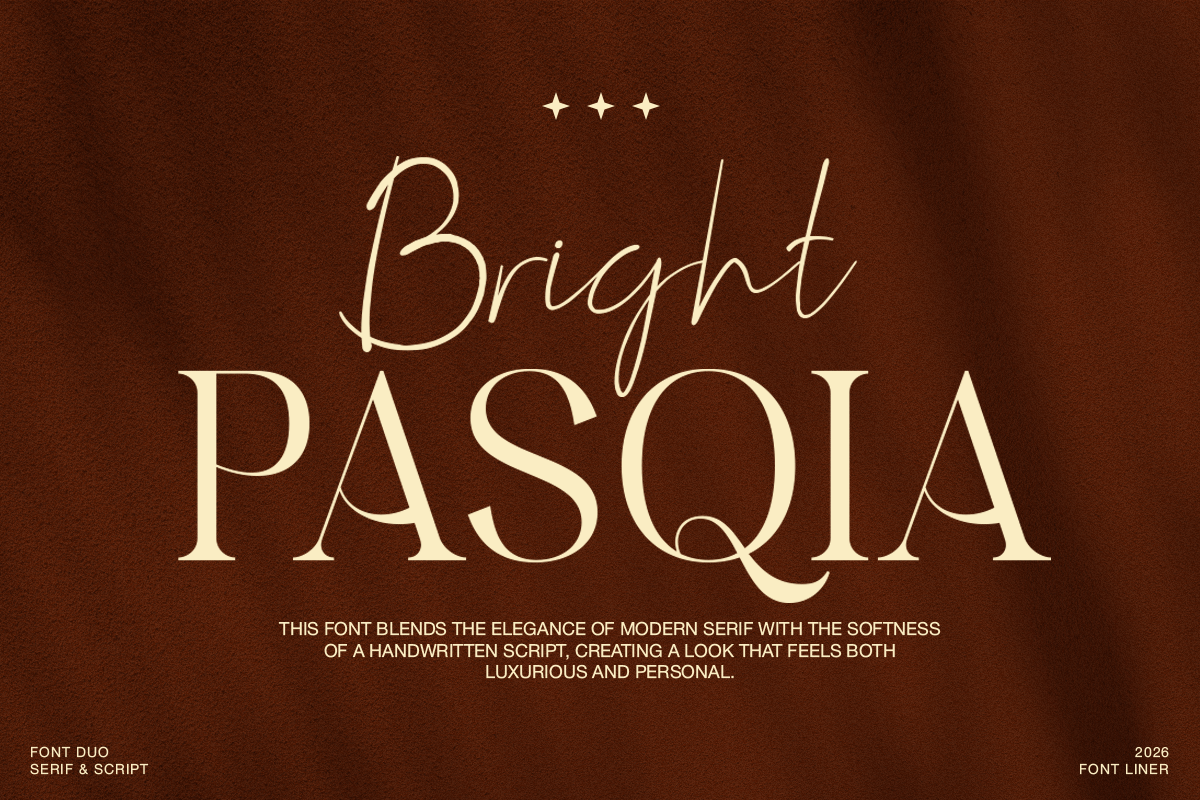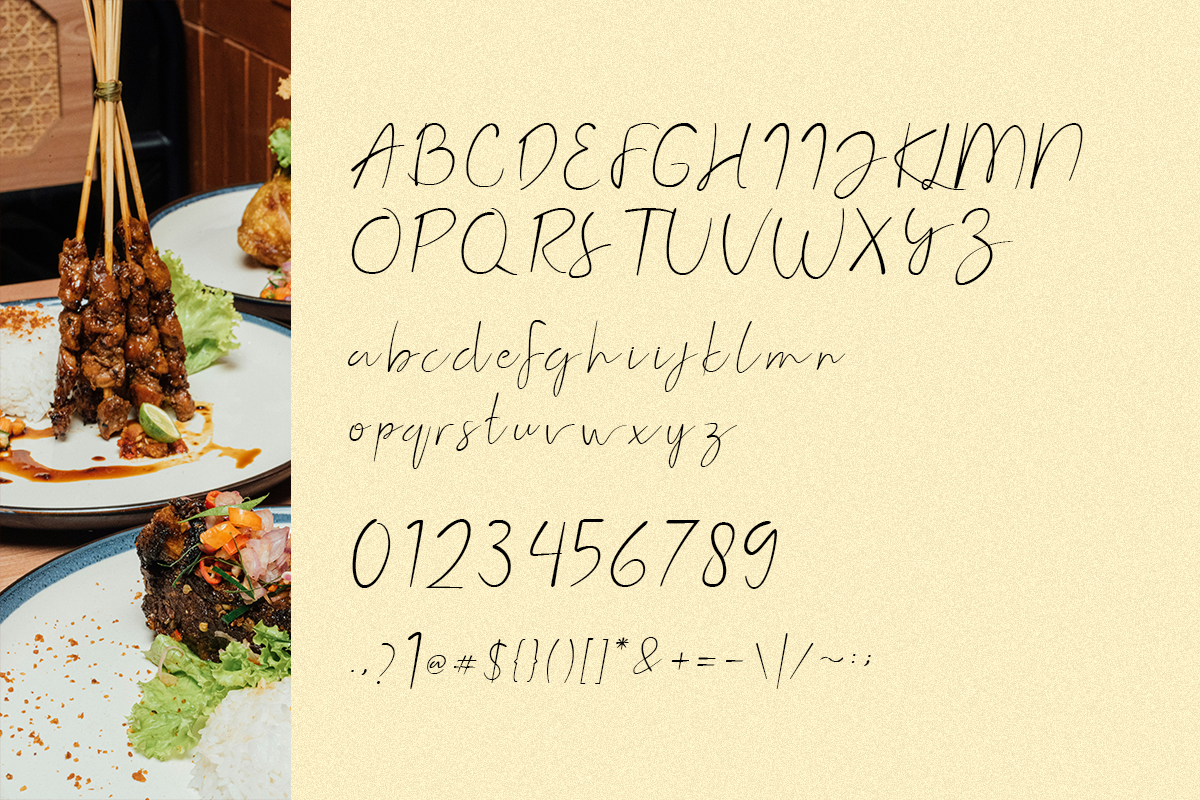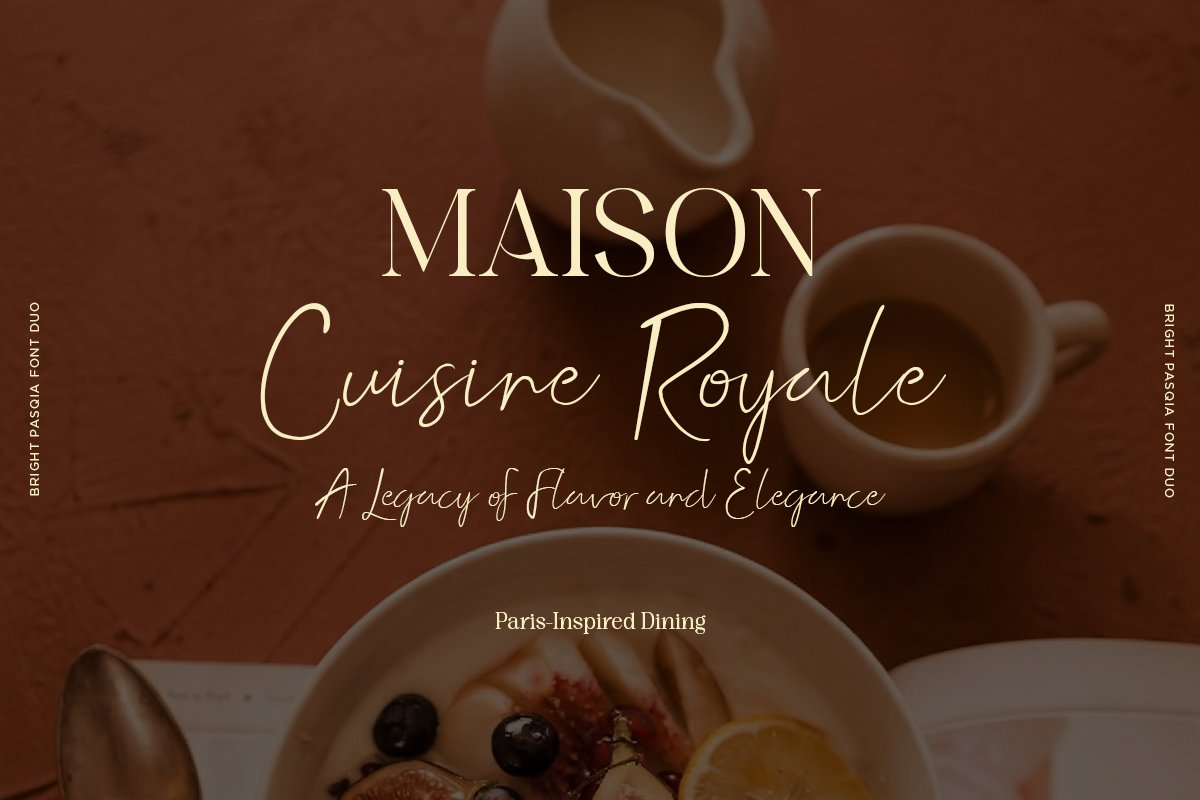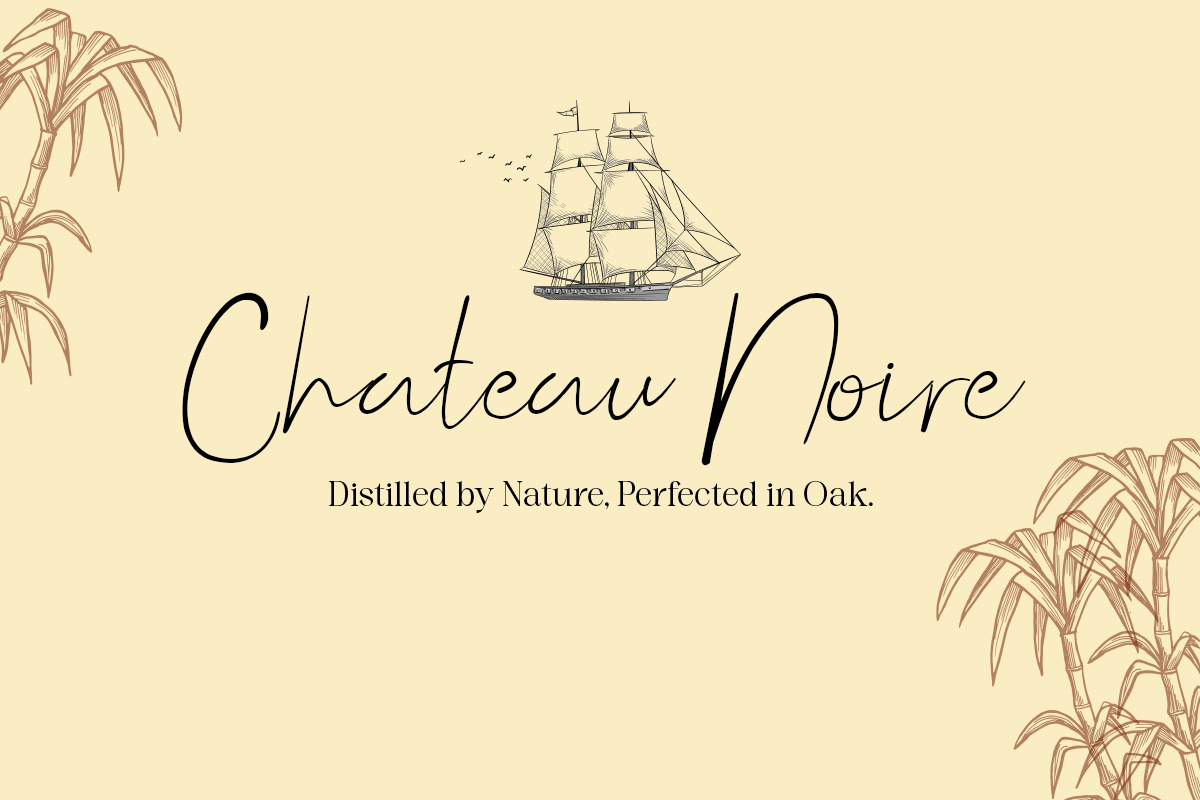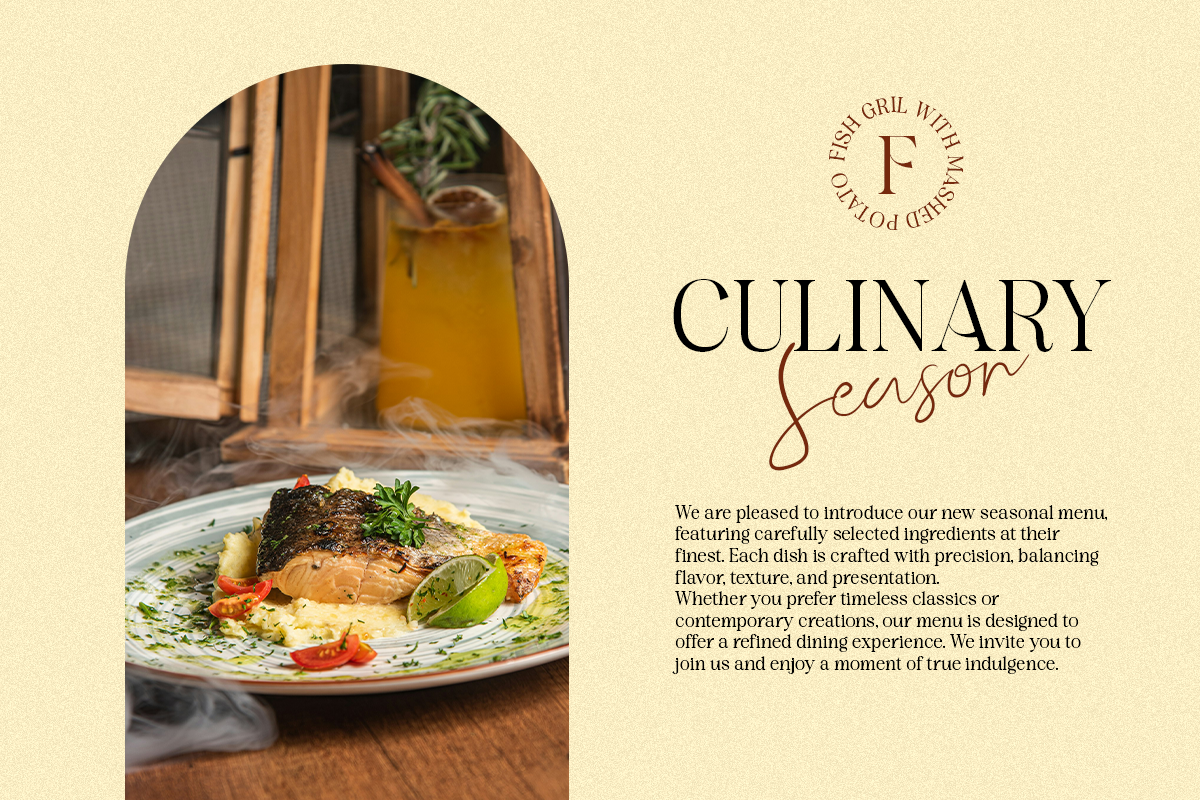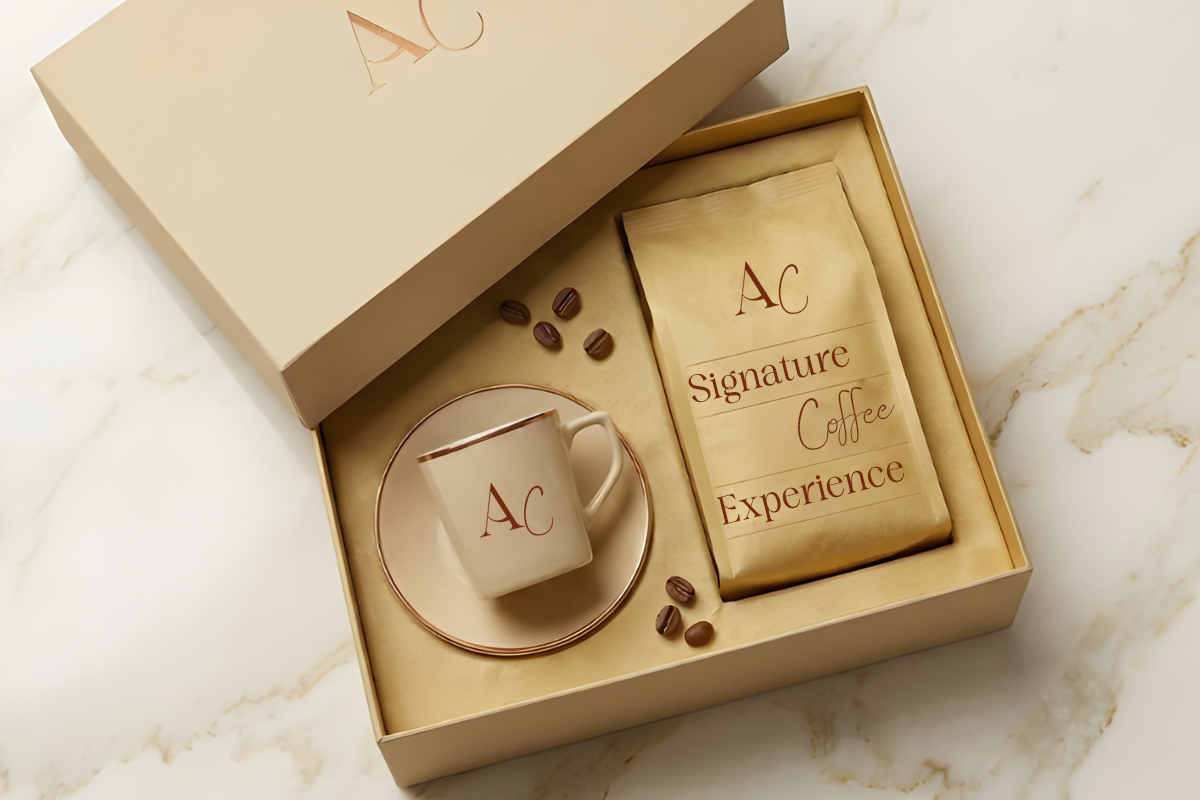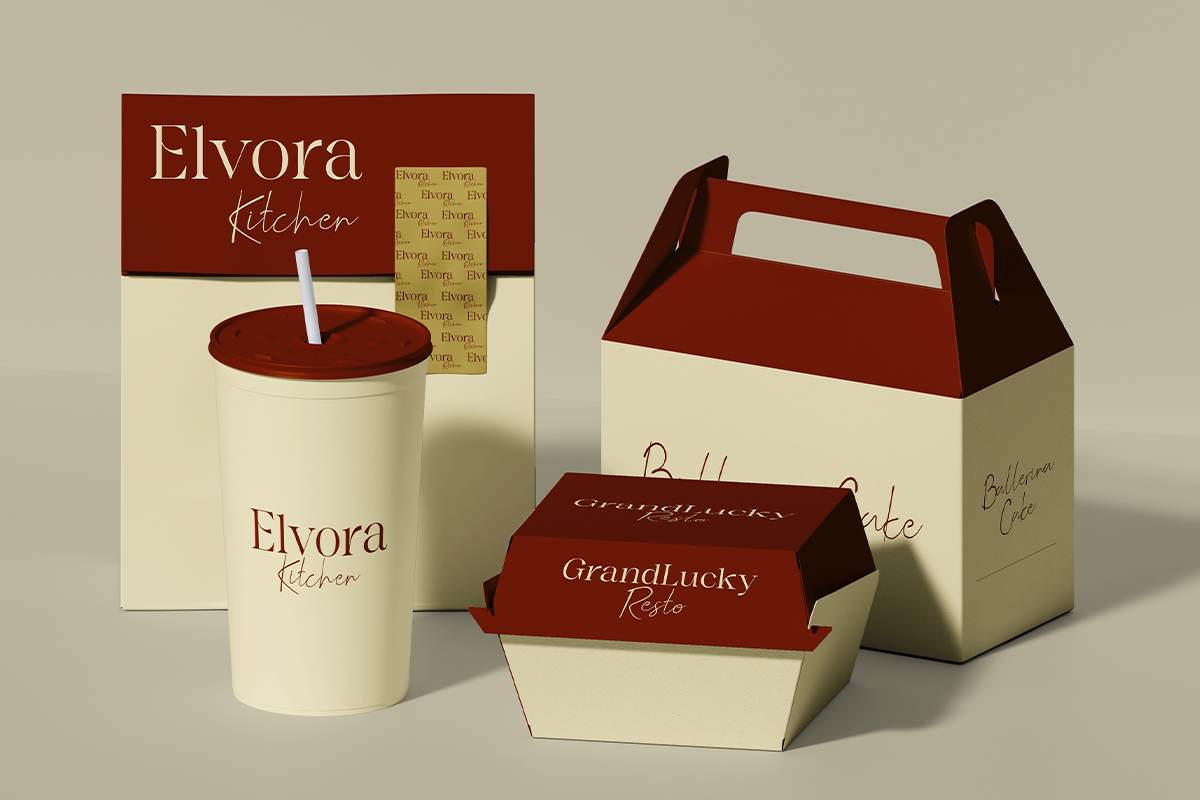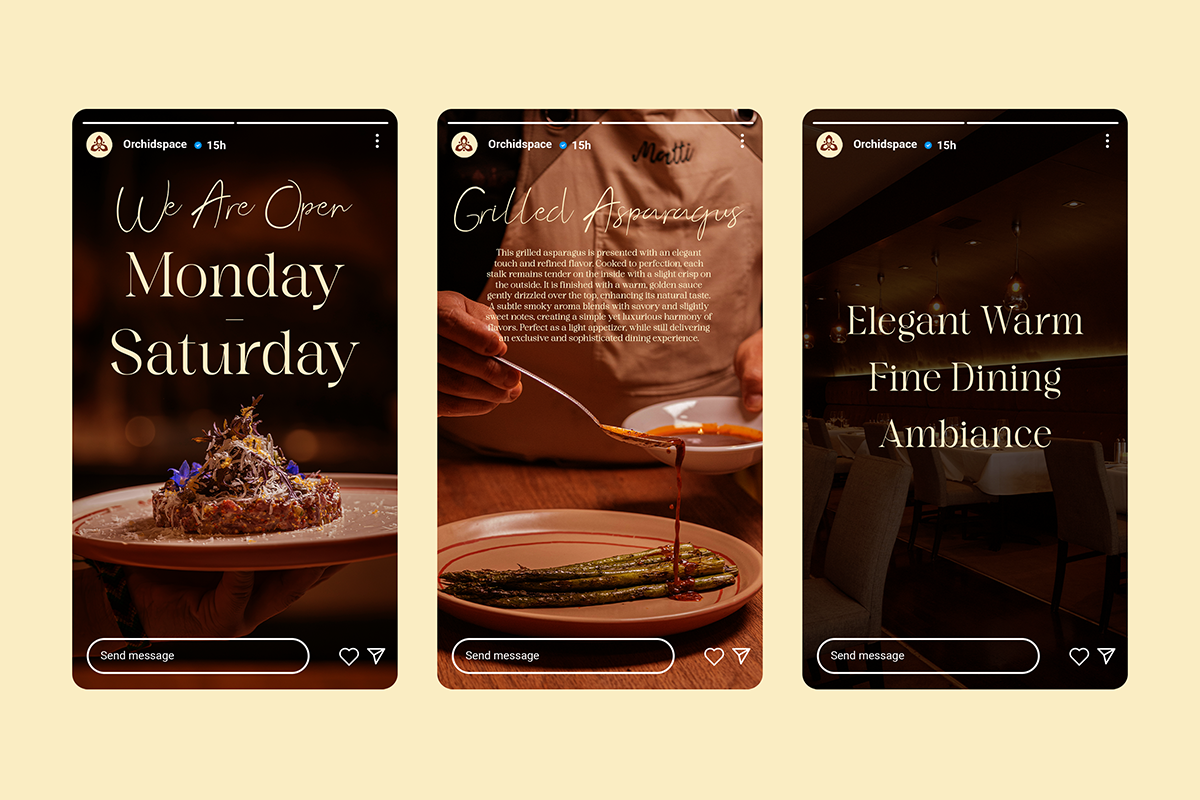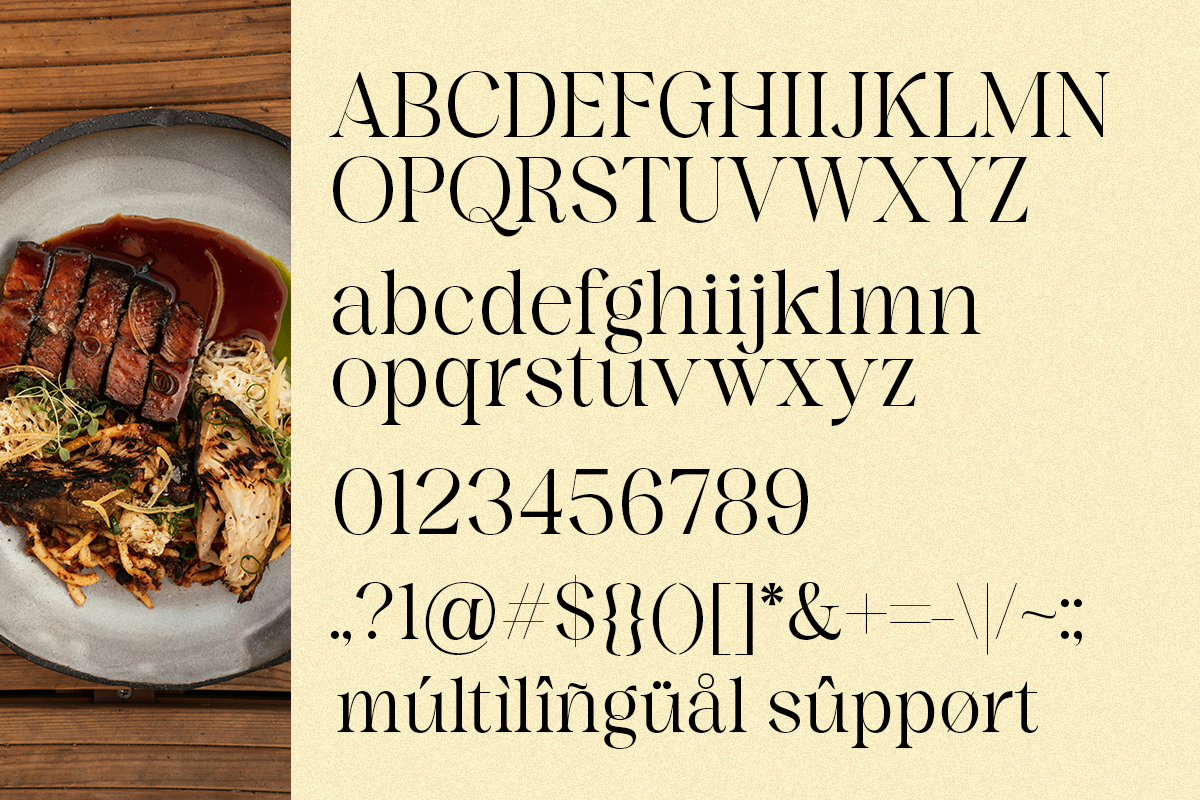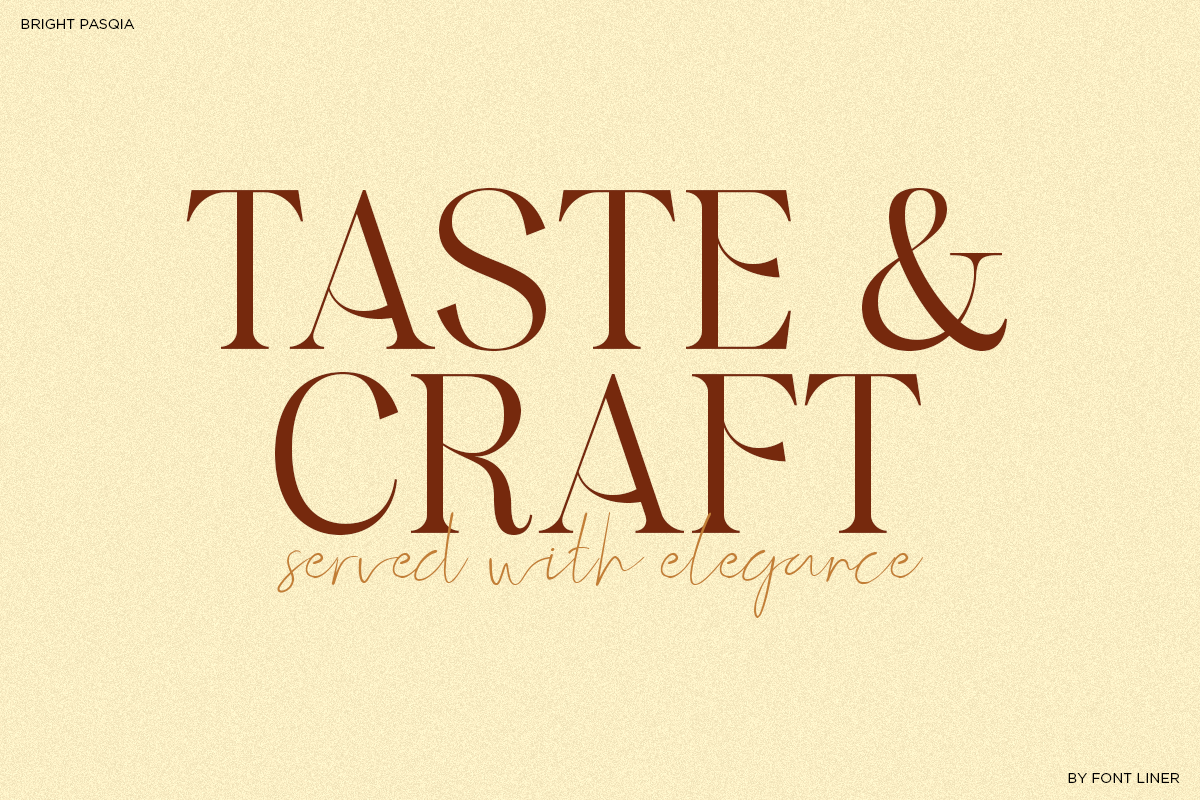
Bright Pasqia - Elegant Font Duo
Bright Pasqia is a sophisticated font duo that blends the elegance of a modern serif with the softness of a handwritten script. This harmonious combination creates a refined yet personal aesthetic, perfect for designs that seek both luxury and warmth. The serif brings structure and authority, while the script adds a natural, flowing touch.
Designed for versatility, Bright Pasqia excels in branding, wedding invitations, editorial layouts, and premium product packaging. The contrast between clean serif forms and expressive script strokes allows for dynamic and eye-catching compositions. Whether used together or separately, both styles enhance visual storytelling with elegance and charm.
With multilingual support and thoughtfully crafted alternates, Bright Pasqia adapts beautifully across various creative needs. It is an ideal choice for designers looking to create timeless, stylish, and emotionally engaging typography for modern luxury projects.